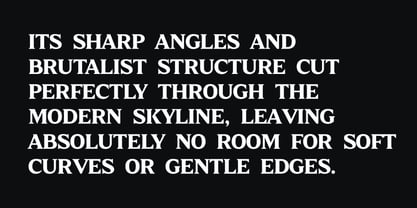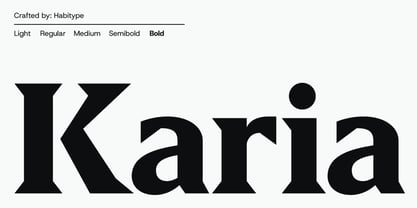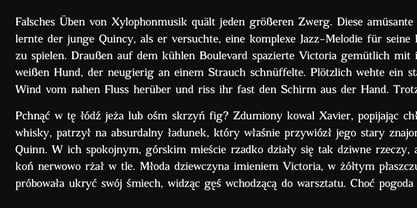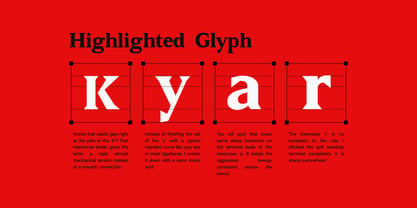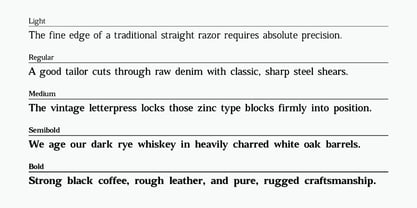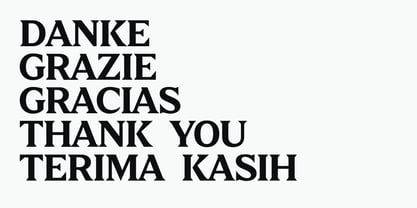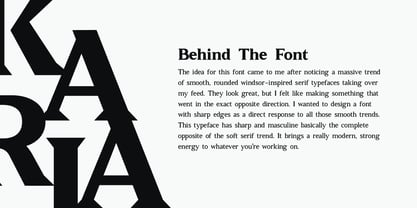
Karia
by Habitype
The Karia Font Family was designed by Fahrul Saputra and published by Habitype. Karia contains 5 styles and family package options. More about this family
Karia is a sharp, high-contrast serif family that merges heritage elegance with striking modern functionality. The defining characteristics of this typeface are its razor-sharp serifs, pronounced stroke contrast, and balanced proportions, making it an essential tool for editorial layouts and approachable luxury branding.
This versatile family encompasses 5 styles, ranging from Light to Bold to provide maximum flexibility for complex design environments.
Designers: Fahrul Saputra
Foundry: Habitype